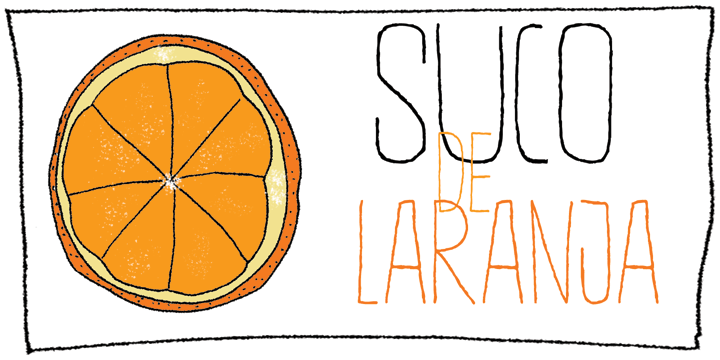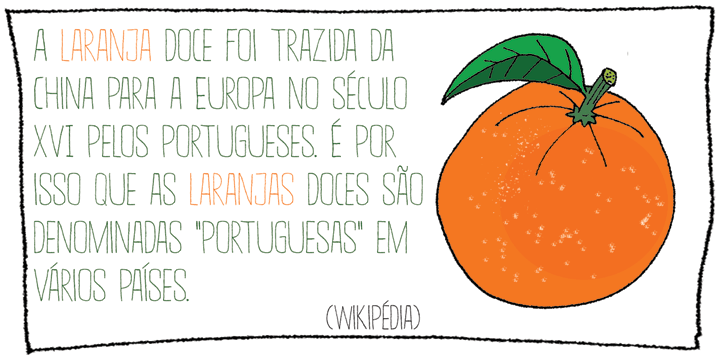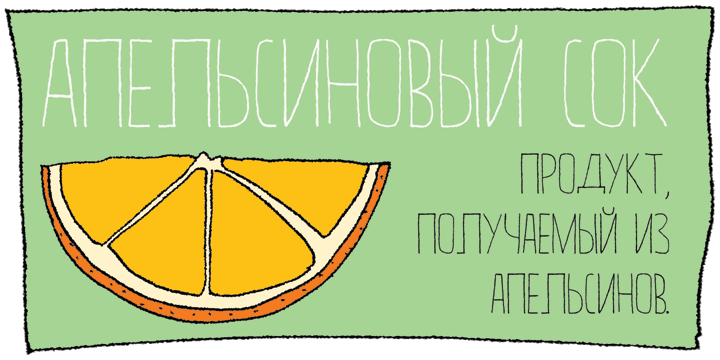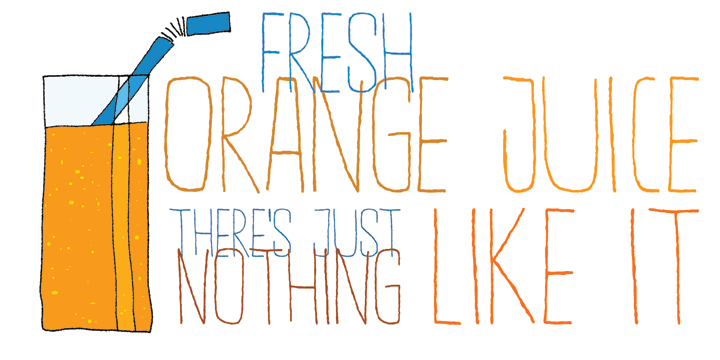
Suco De Laranja
Buy NowI like orange juice. Come on, who doesn't? Orange juice is the drink of heroes; it's the elixir of life; it's the gods' own ambrosia. Suco De Laranja means orange juice in Portuguese and I named this font thus, just because I love the stuff!
Suco De Laranja is a very narrow, very gentle typeface with a rough edge. It comes in a variety of languages and guess what? I have added Cyrillic as well. Just to be complete.
So there you have it: a font named after a juice. Take a sip and enjoy! ?? ????????!